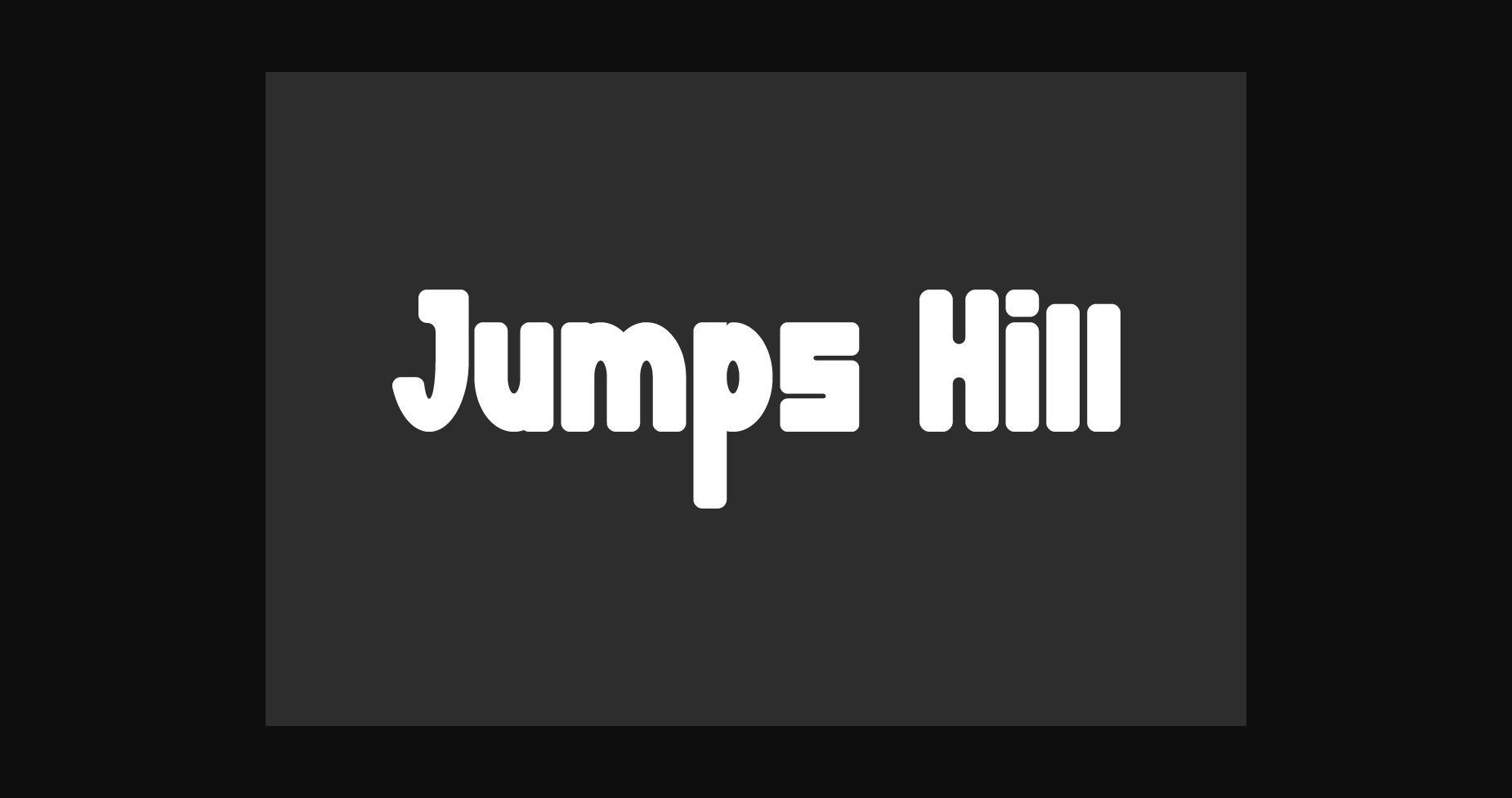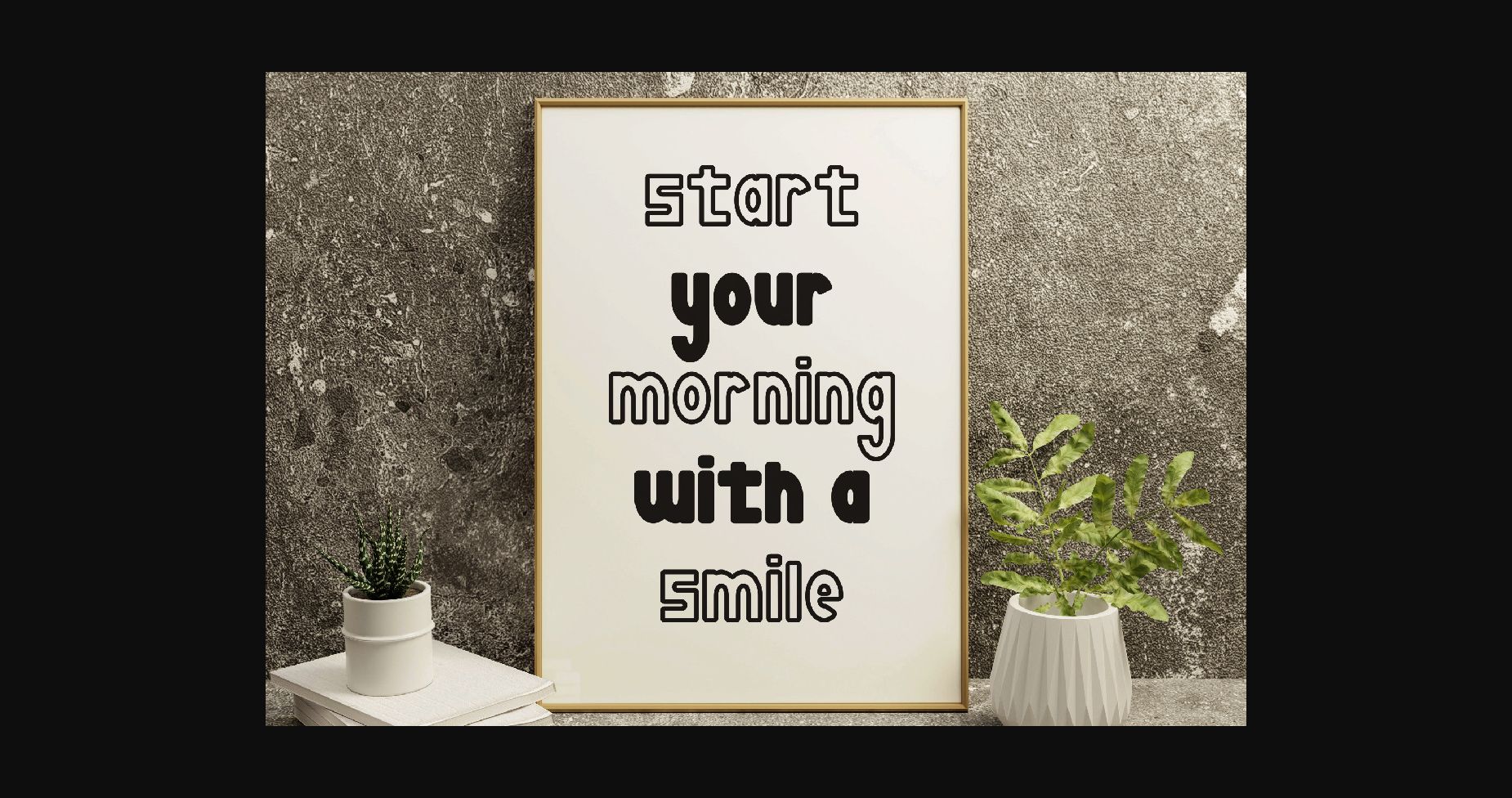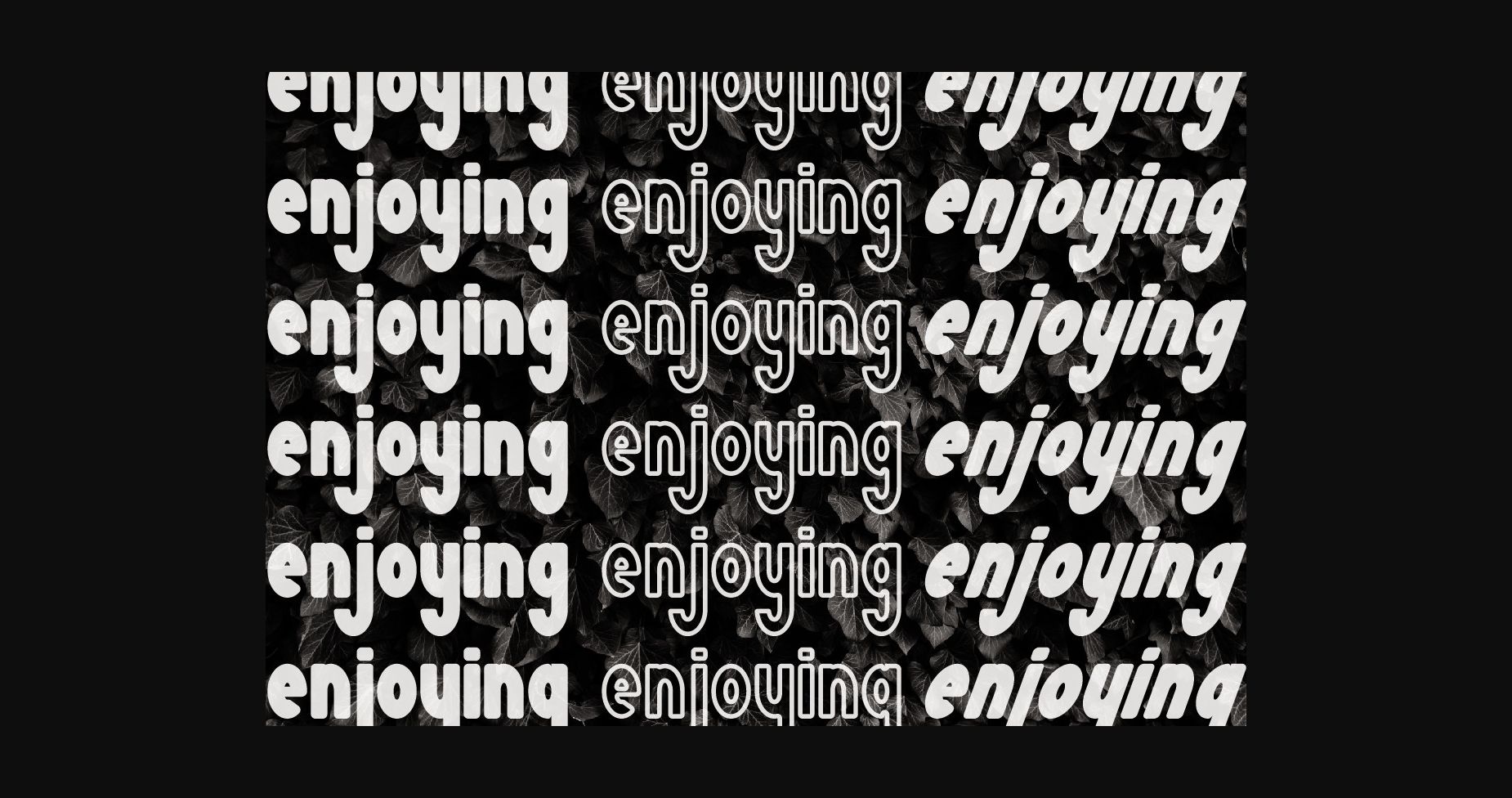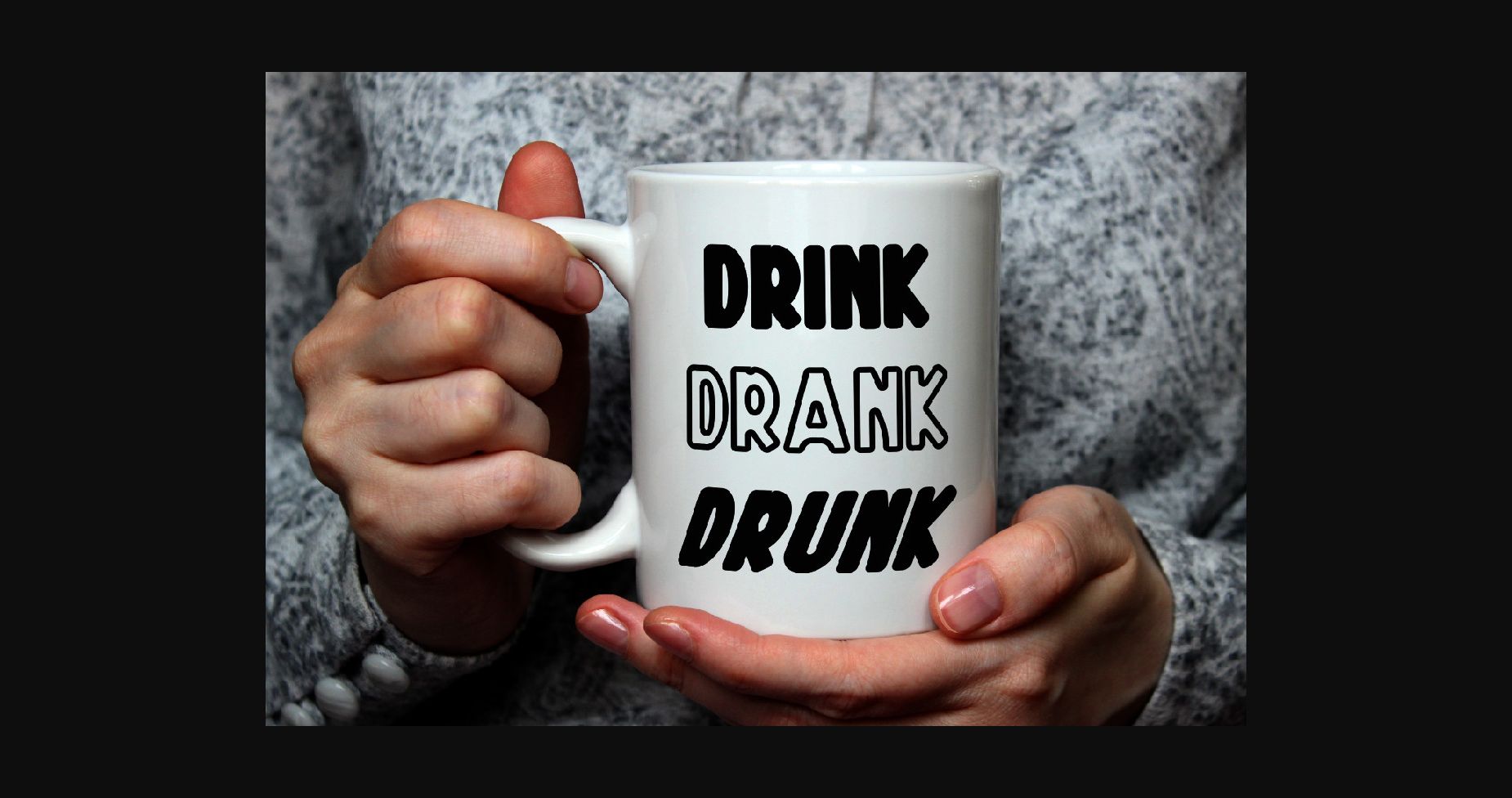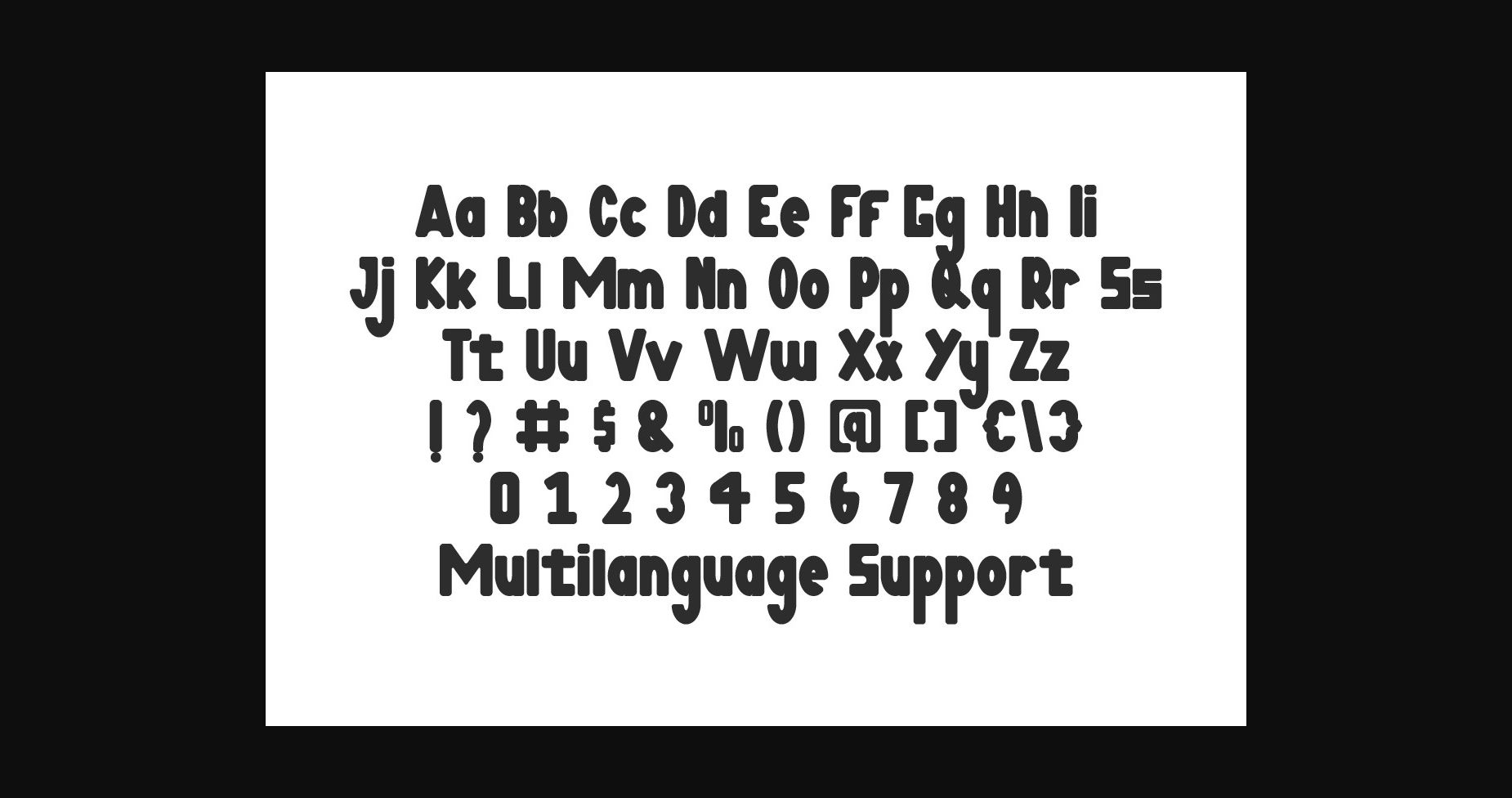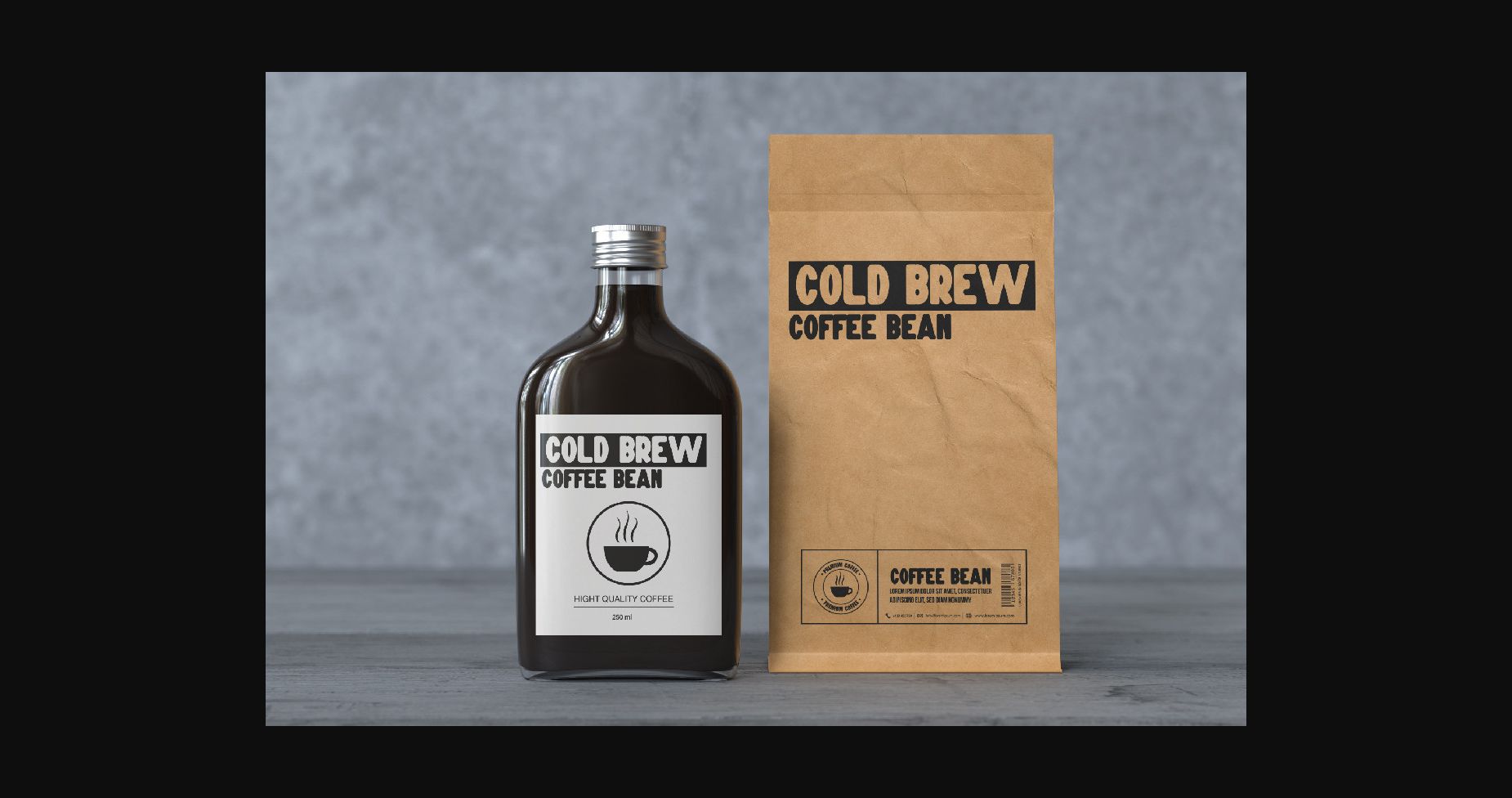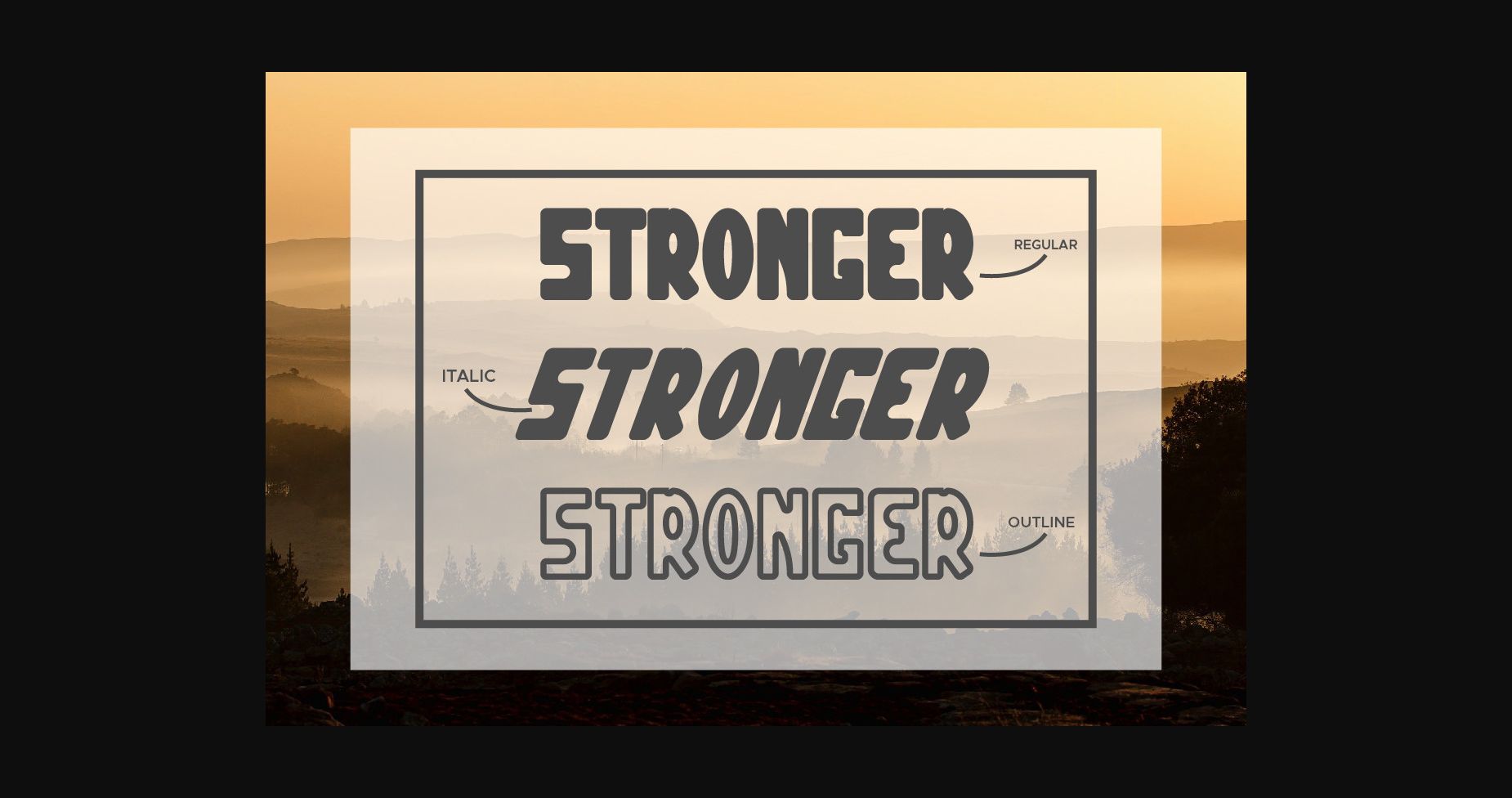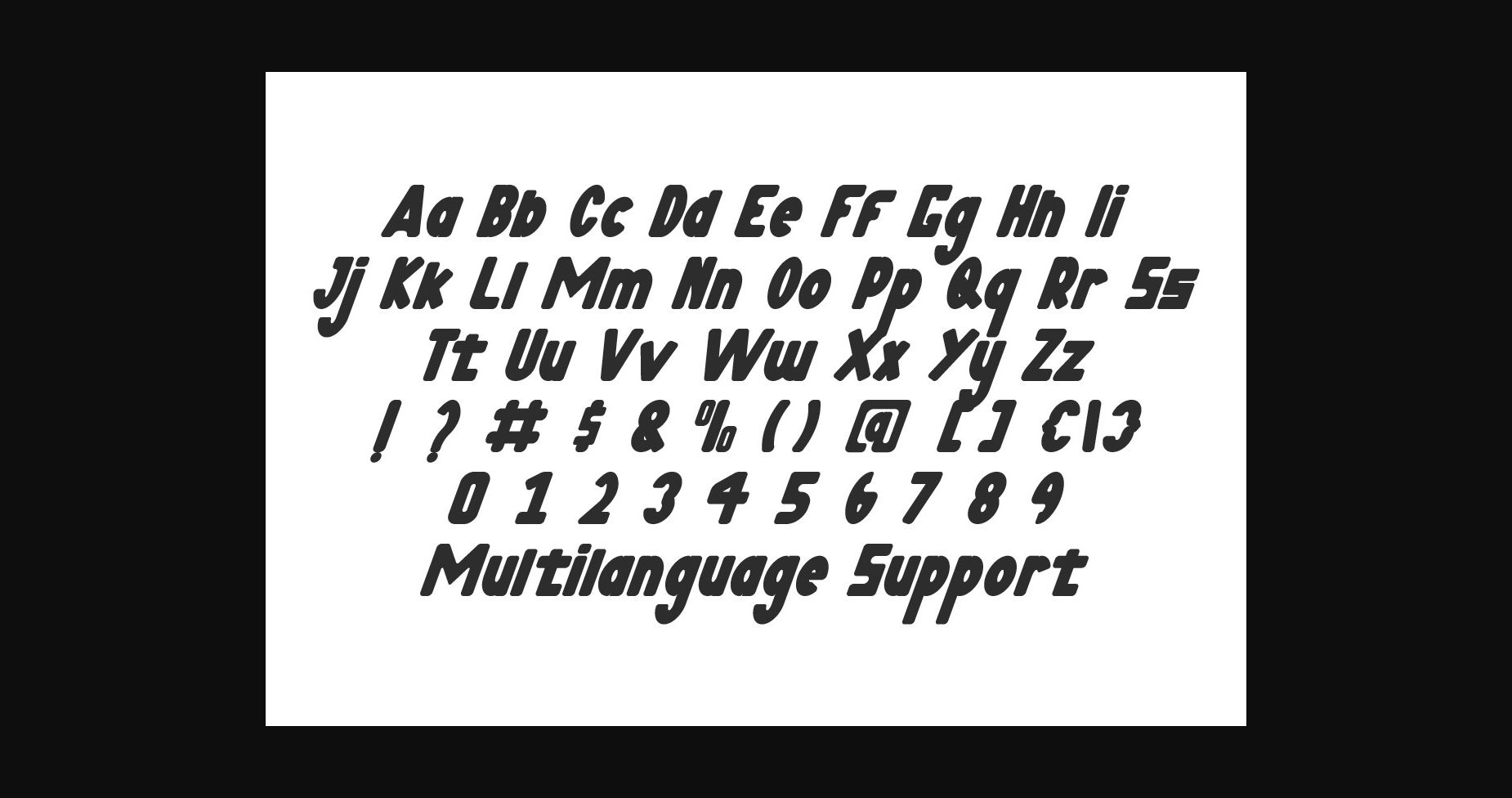
About Jumps Hill Font
Jumps Hill is a modern sans serif font with negative space on its shapes. This font has a futuristic and techno style that looks stunning in just about every context. Use it for logos, print, collage, body text, and more!
This font is perfect for many projects, headings, logos, branding design, quotes, products, cards, stationery, invitations, and more! Be a perfect professional in a minute and start creating today!